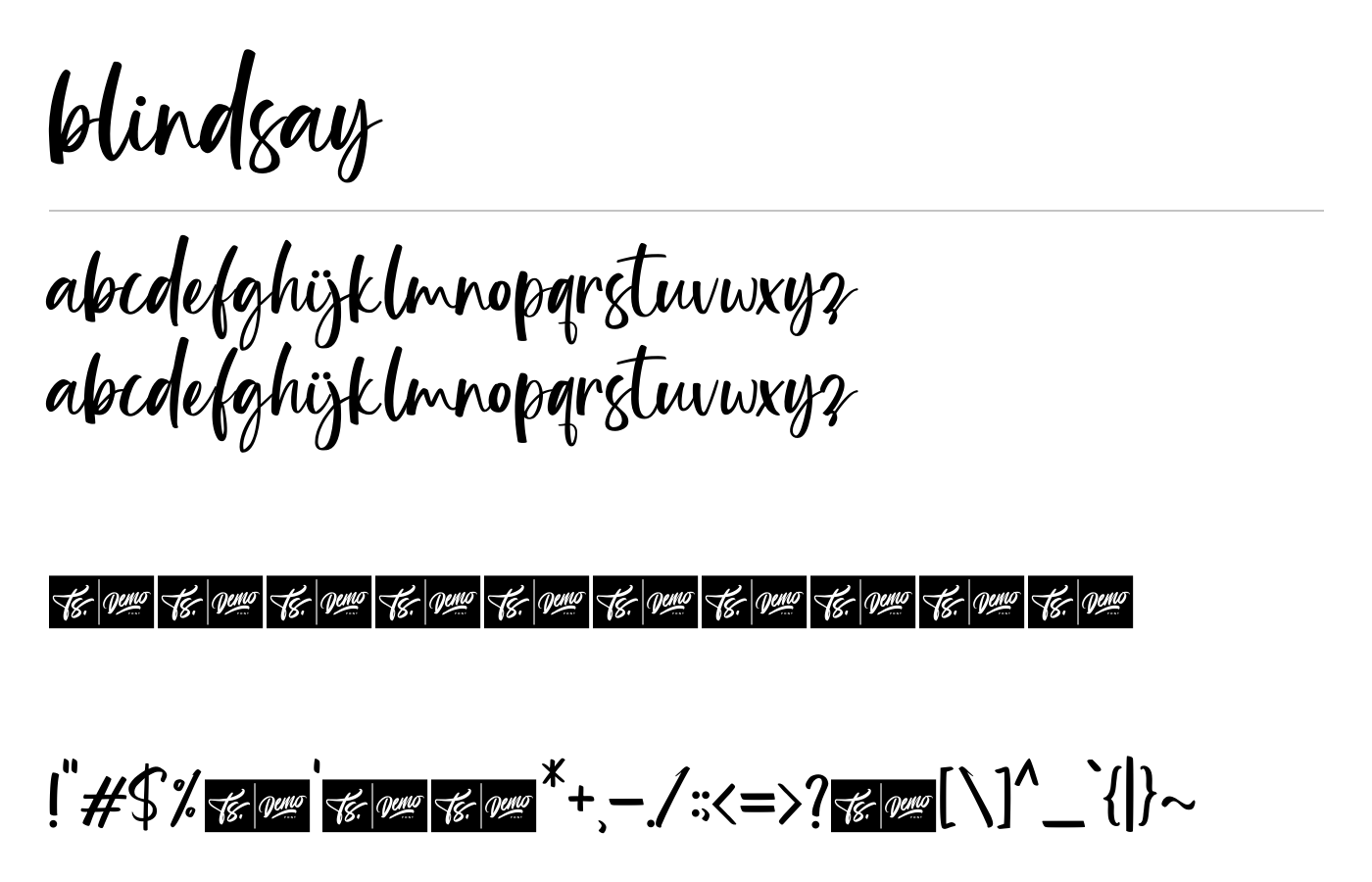
Blindsay is a lively and casual handwritten script font with a smooth, flowing style that feels both personal and approachable. Its moderate weight and tall x-height make it easy to read while maintaining a playful and friendly vibe, perfect for creative branding, invitations, and informal editorial designs. This font shines when used in logos, headlines, or any project seeking a warm, human touch.
Blindsay Font